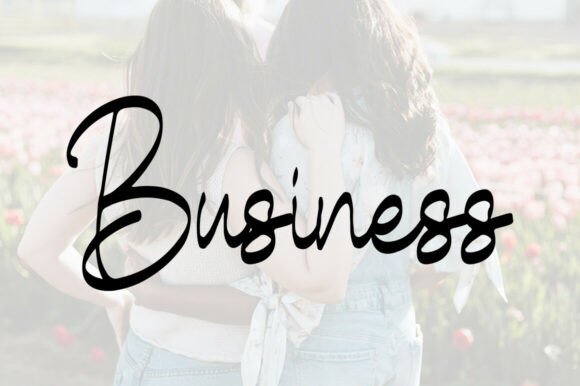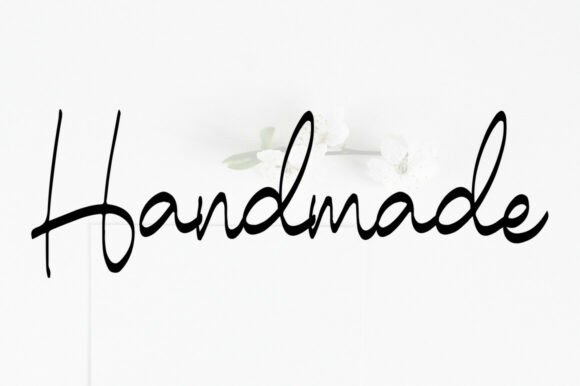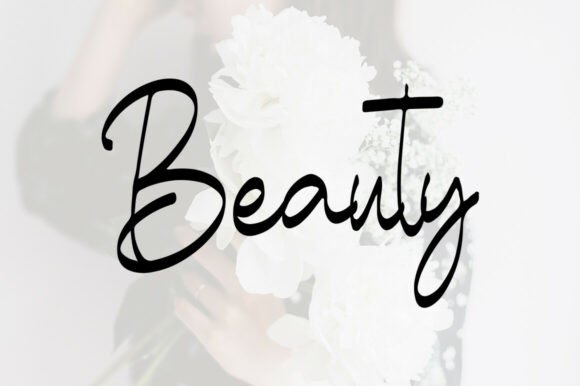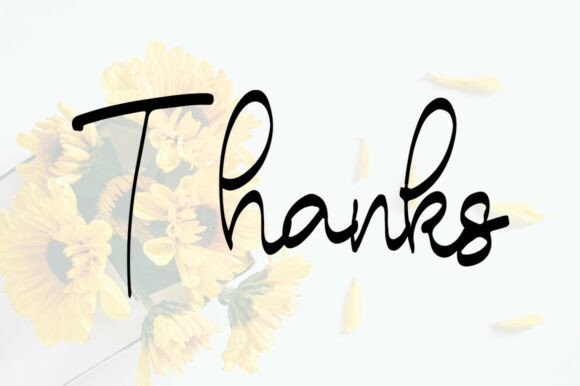
Hearthly Font: Elevate Your Designs with Elegance and Whimsy
In the world of typography, fonts play a crucial role in conveying the tone and personality of a design. For those seeking a touch of elegance and playfulness, the Hearthly Font is an excellent choice. This modern script font has captured the hearts of designers and crafters alike with its unique blend of sophistication and fun.
What is Hearthly Font?
Hearthly is a beautifully crafted script font that exudes elegance and charm. Its modern design makes it perfect for a wide range of creative projects, from wedding invitations and greeting cards to branding and advertising materials. The font’s versatility and aesthetic appeal have made it a popular choice among designers and crafters.
Key Features of Hearthly Font
- Elegant and Modern Design: Hearthly boasts a sleek and contemporary design that adds a touch of sophistication to any project.
- Cute and Fun: Despite its elegance, Hearthly has a playful side that makes it ideal for designs that require a bit of whimsy.
- Script Style: As a script font, Hearthly features flowing connections between letters, creating a beautiful and harmonious visual effect.
- Highly Versatile: Whether you’re designing wedding invitations, business cards, or social media graphics, Hearthly is a versatile font that can adapt to various design needs.
Uses of Hearthly Font
So, what can you create with Hearthly Font? The possibilities are endless! Here are some popular use cases:
- Wedding Invitations: Add a touch of romance and elegance to your wedding invitations with Hearthly.
- Greeting Cards: Create beautiful and heartfelt greeting cards for special occasions like birthdays, anniversaries, and holidays.
- Branding and Advertising: Use Hearthly to create eye-catching logos, slogans, and ad copy that stands out from the crowd.
- Social Media Graphics: Elevate your social media presence with stunning graphics featuring Hearthly Font.
Why Choose Hearthly Font?
With so many fonts available, why choose Hearthly? Here are a few compelling reasons:
- Unique and Distinctive: Hearthly’s modern script design sets it apart from more traditional fonts.
- Ease of Use: Hearthly is easy to read and works well in various design contexts.
- Customizable: Experiment with different sizes, colors, and styles to make Hearthly your own.
Tips for Using Hearthly Font
To get the most out of Hearthly Font, keep the following tips in mind:
- Pair with Complementary Fonts: Combine Hearthly with sans-serif fonts for a striking contrast.
- Experiment with Colors: Try out different colors and gradients to add depth and visual interest.
- Play with Sizes: Use varying font sizes to create a visually appealing hierarchy of information.
In conclusion, Hearthly Font is an exceptional choice for designers and crafters seeking to add a touch of elegance and whimsy to their projects. Its modern script design, versatility, and ease of use make it an excellent addition to any design toolkit. Whether you’re creating wedding invitations, branding materials, or social media graphics, Hearthly is sure to impress.